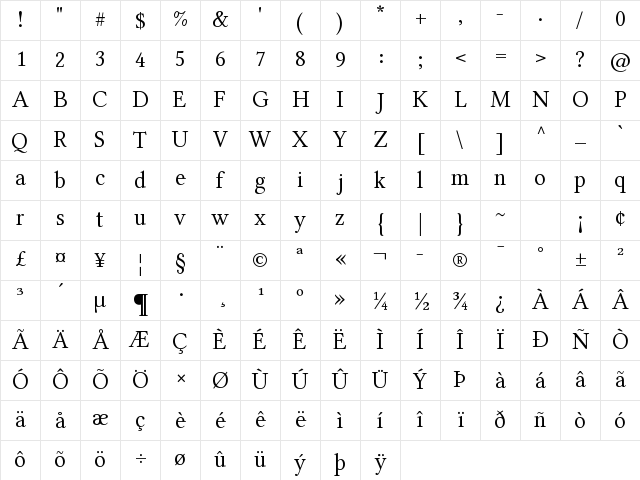
Libertinage e Free Font
Libertinage e
Style: e
Foundry: OSP
Designer: OSP
Design Context for Libertinage
Libertinage is a composed and adaptable typeface that performs quietly and consistently across a wide range of design contexts.